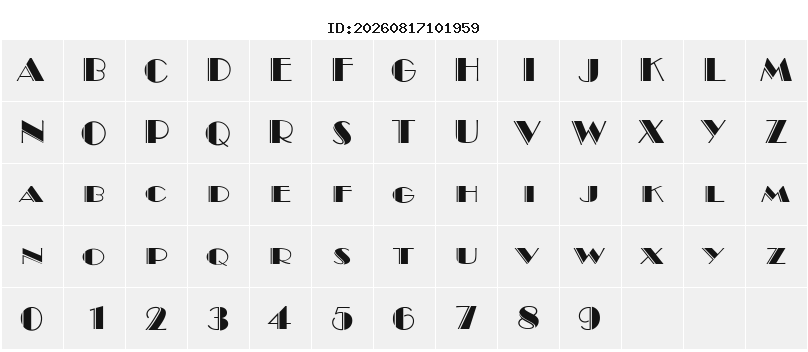
SophiaBecker Preview
About SophiaBecker.ttf
SophiaBecker.ttf is a modern, elegant sans-serif font designed for ultimate readability and visual harmony. Perfect for branding, headlines, web design, and print materials.